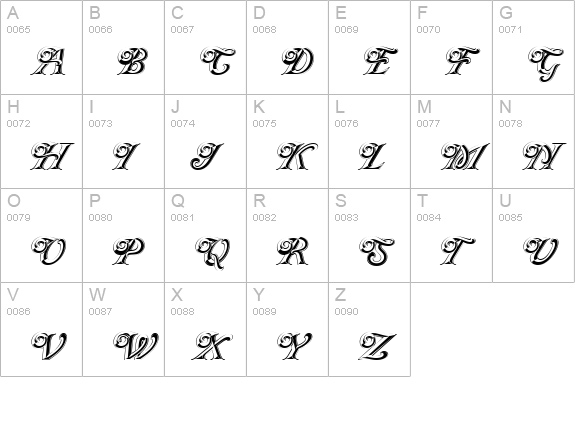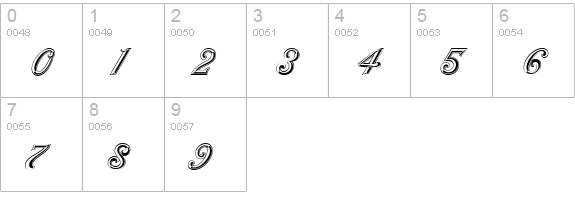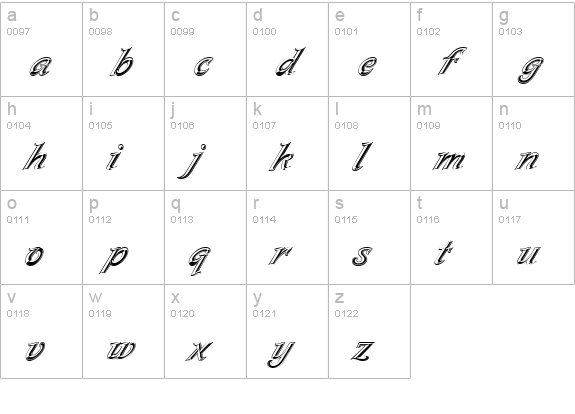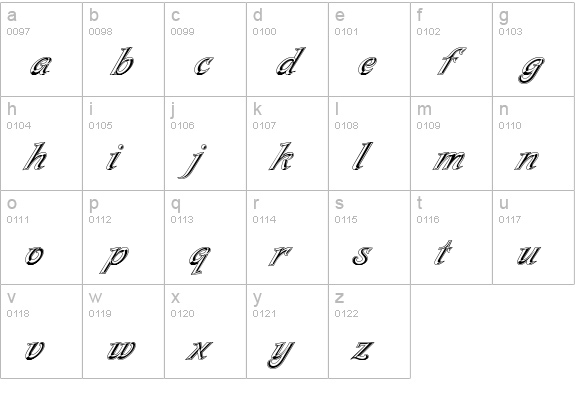
Milano LET Font Details
Milano LET font is a modern and stylish typeface that exudes elegance and sophistication. Its sleek lines and balanced letterforms make it a versatile choice for a wide range of design projects, from branding to editorial design. The font's clean and contemporary aesthetic is perfect for creating a polished and professional look. What makes Milano LET font even more appealing is that it is available for free download at FontsMarket.com. This means you can easily access this high-quality font and use it in your projects without any cost. Whether you're designing a logo, website, or any other creative project, Milano LET font is a fantastic choice that will elevate your designs and make them stand out. Don't miss out on the opportunity to enhance your work with the Milano LET font - download it for free today at FontsMarket.com and let your creativity shine!